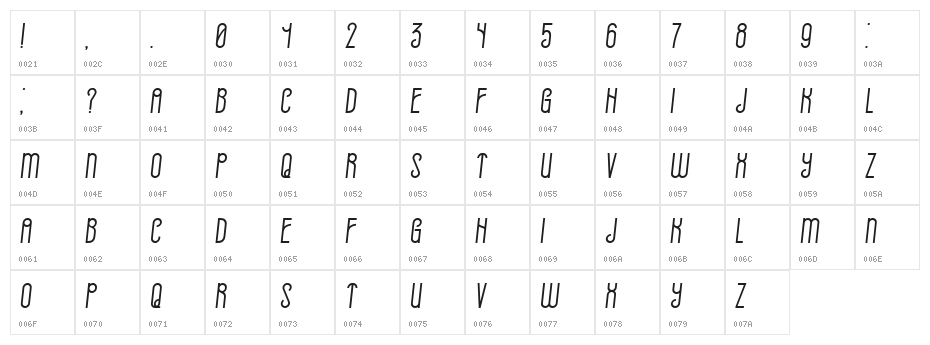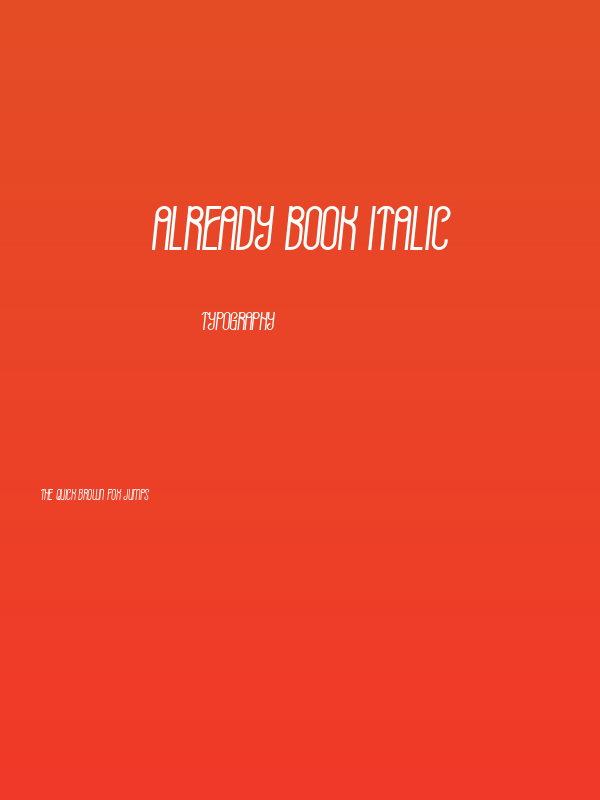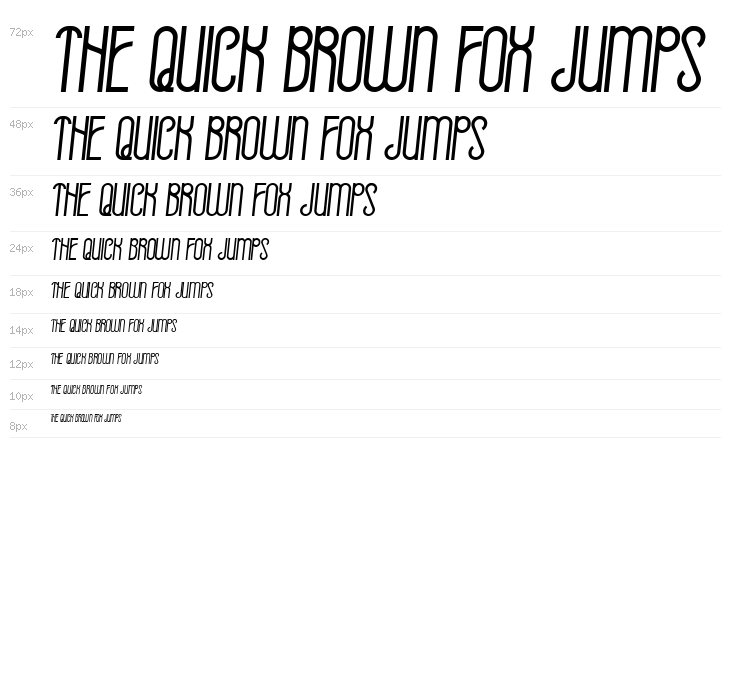
Already Book Italic Font
Already Book Italic Description
This font features a unique blend of modern and retro aesthetics, characterized by its elongated, narrow letterforms and subtle italic slant. The uppercase and lowercase letters maintain a consistent height, creating a uniform appearance. The strokes are smooth and slightly curved, adding a touch of elegance and fluidity to the overall design. The numbers and special characters follow the same stylistic approach, ensuring visual harmony across all elements. The font's distinctive style makes it suitable for projects that require a contemporary yet nostalgic feel.
| Proposed Projects | Ideal for branding, posters, and editorial design where a modern yet nostalgic look is desired. |